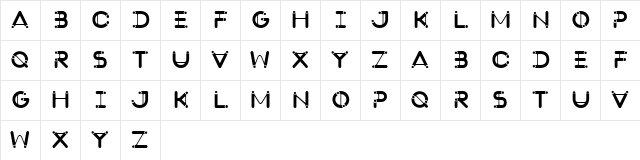
SlingShot Regular
Design Context for SlingShot
SlingShot is a composed and adaptable typeface that performs quietly and consistently across a wide range of design contexts.
Pro Tip: Use SlingShot in both headline and body roles to test its range before committing to a single application.